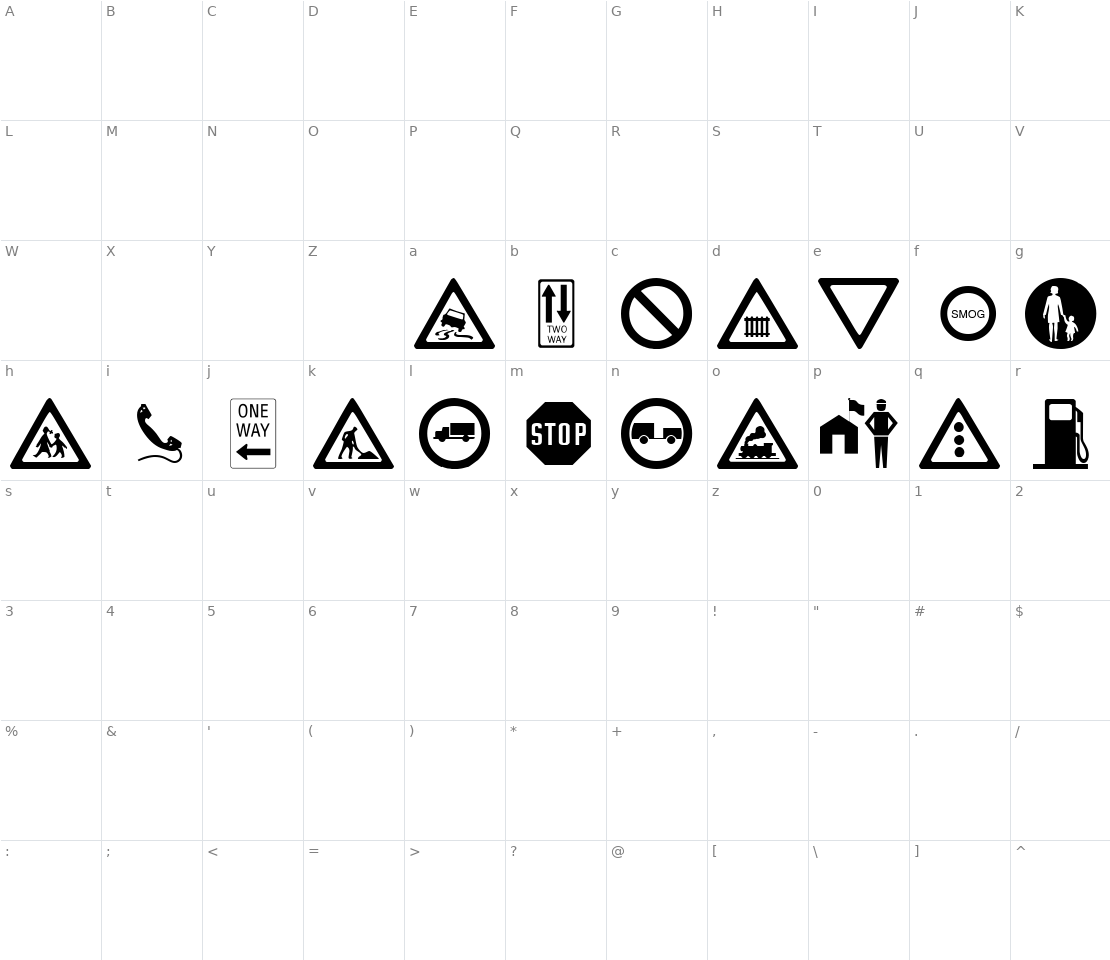
WM Roadsigns
WM Roadsigns is a pictogram font from WillyMac containing traffic and road sign symbols, from warning triangles to transportation icons. It's a utility face rather than a typographic one, useful for wayfinding mockups, instructional materials, or any design that needs recognizable signage icons without hunting down individual vector files.